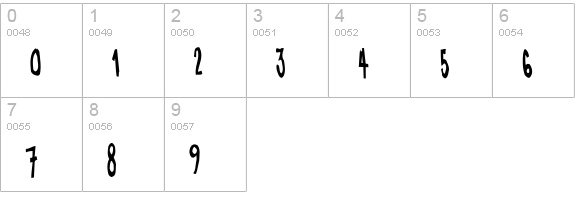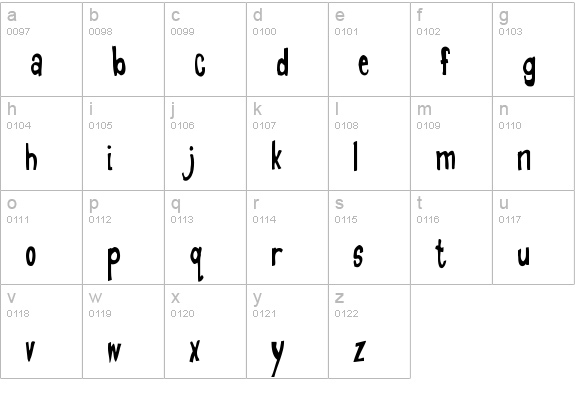
EatpooTall Font Details
Introducing EatpooTall, a captivating and versatile font that will add a touch of elegance and uniqueness to your designs. With its tall and slender letterforms, this font exudes a sense of sophistication and modernity, making it perfect for various creative projects. Whether you're designing a logo, creating eye-catching headlines, or crafting compelling social media graphics, EatpooTall will effortlessly elevate your designs to new heights. Its clean lines and balanced proportions ensure legibility, while its intricate details and subtle curves add a touch of flair and personality. One of the best features of EatpooTall is that it is absolutely free. Yes, you read it right! This extraordinary font is freely available to download at FontsMarket.com, a trusted source for high-quality fonts. By offering this font for free, we aim to empower designers and creatives to bring their visions to life without any constraints. With EatpooTall, you can explore endless possibilities and unleash your creativity. Its wide range of glyphs and extensive language support make it suitable for diverse design projects, allowing you to effortlessly communicate your message across different platforms and audiences. So, why wait? Download EatpooTall today from FontsMarket.com and experience the freedom and versatility this font has to offer. Whether you're a professional designer or an aspiring creative, this font will undoubtedly become an invaluable addition to your font library, enabling you to create stunning visuals that leave a lasting impression.